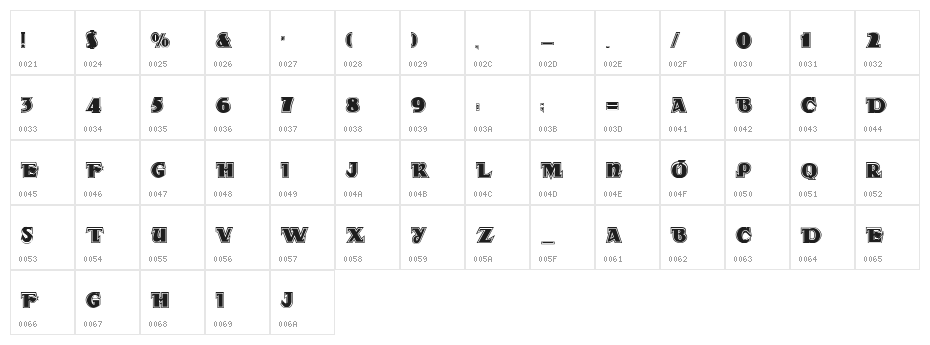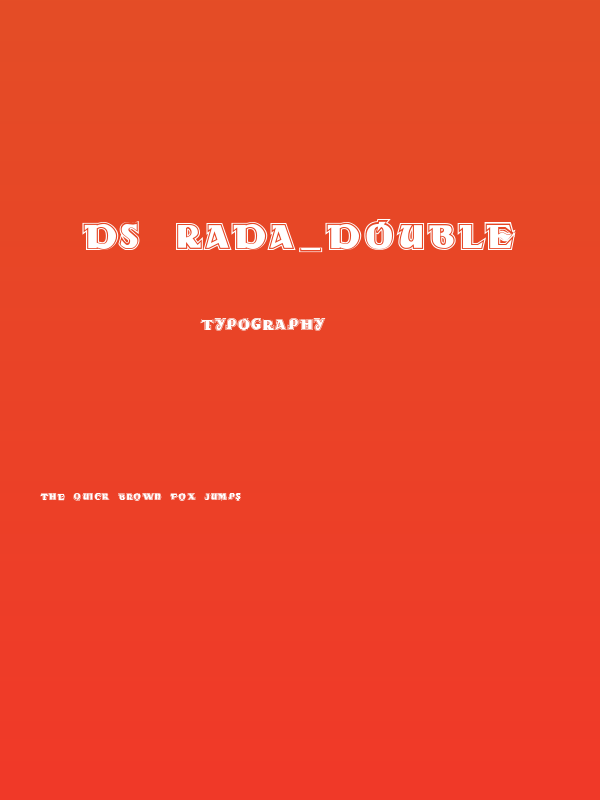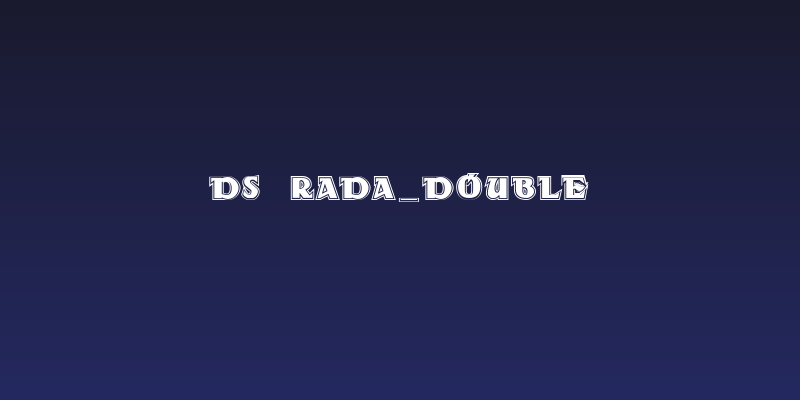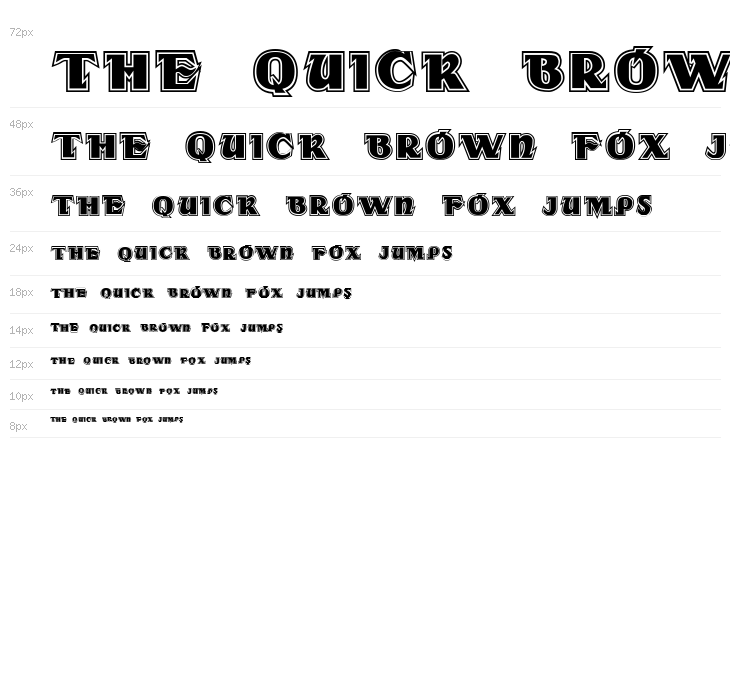
DS Rada_Double Font
DS Rada_Double Description
This font features a bold and striking design with a double-layered effect that creates a sense of depth and dimension. The characters are outlined with a thick border, enhancing their visibility and making them stand out. The style is reminiscent of vintage signage, with a playful yet commanding presence. The uppercase and lowercase letters maintain a consistent style, with sharp angles and clean lines. Numbers and special characters are equally bold, ensuring uniformity across all text elements. This font is ideal for projects that require a strong visual impact.